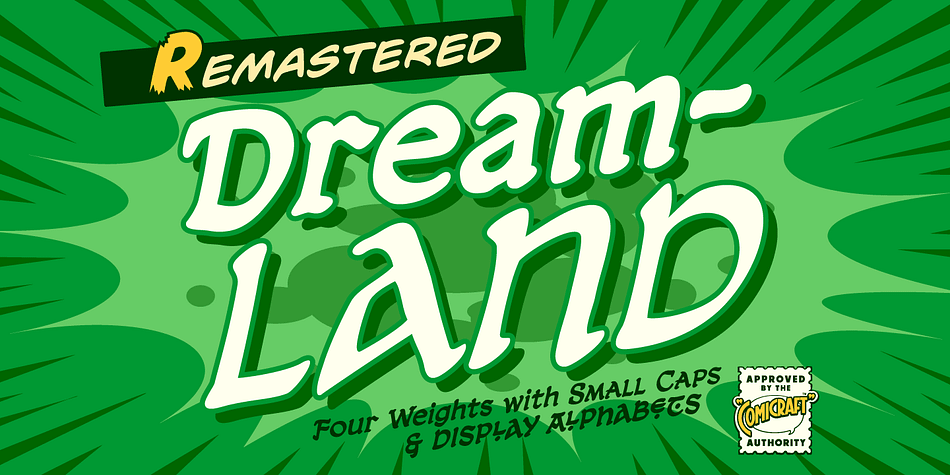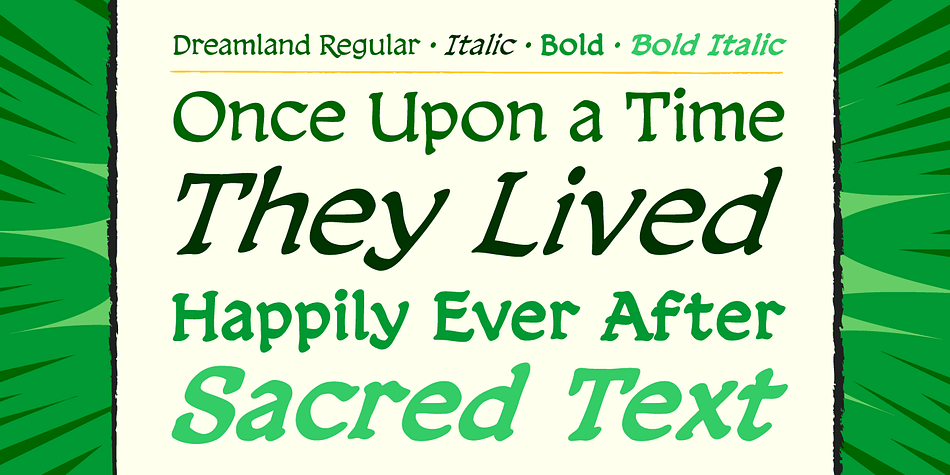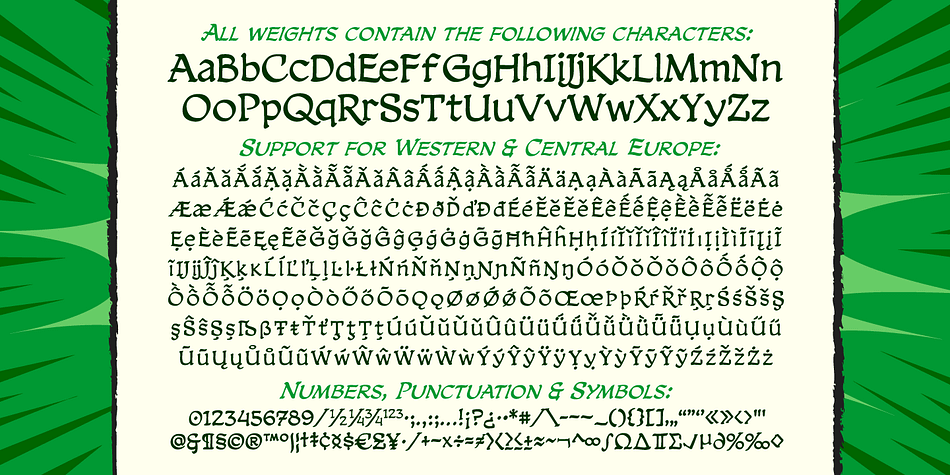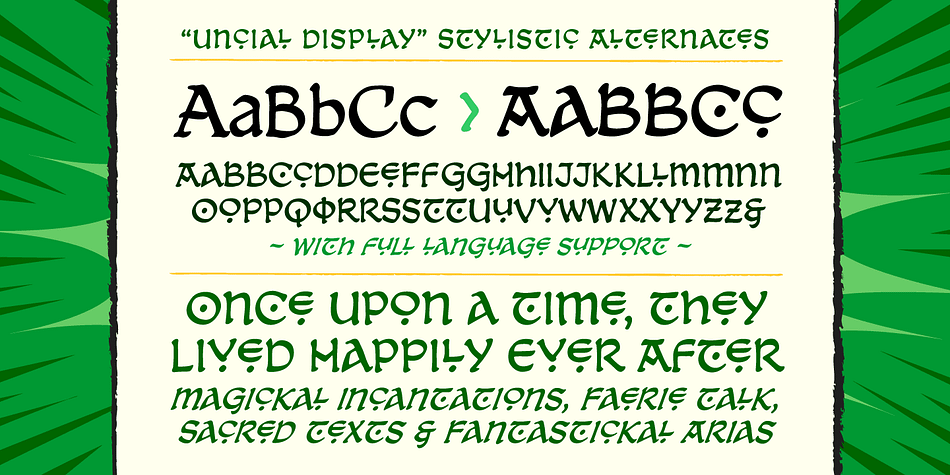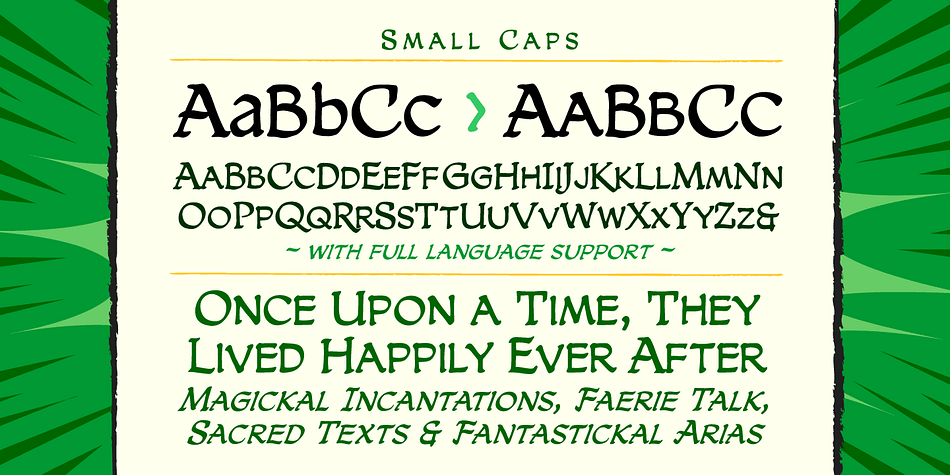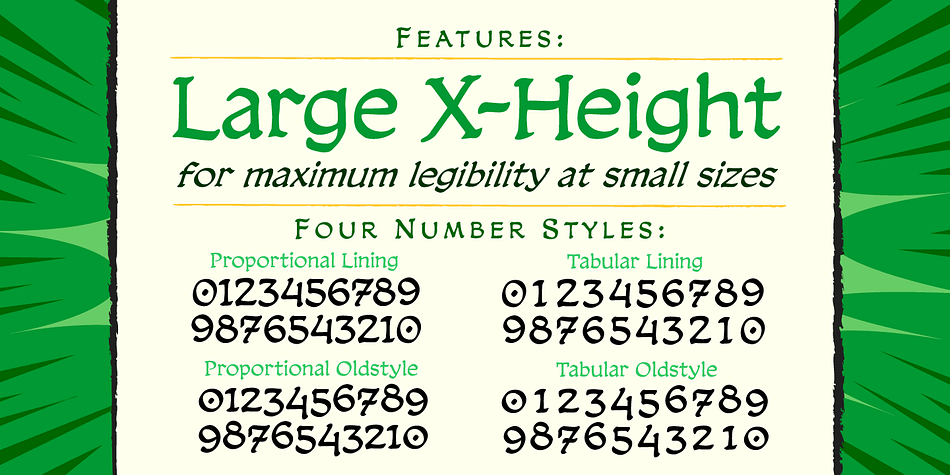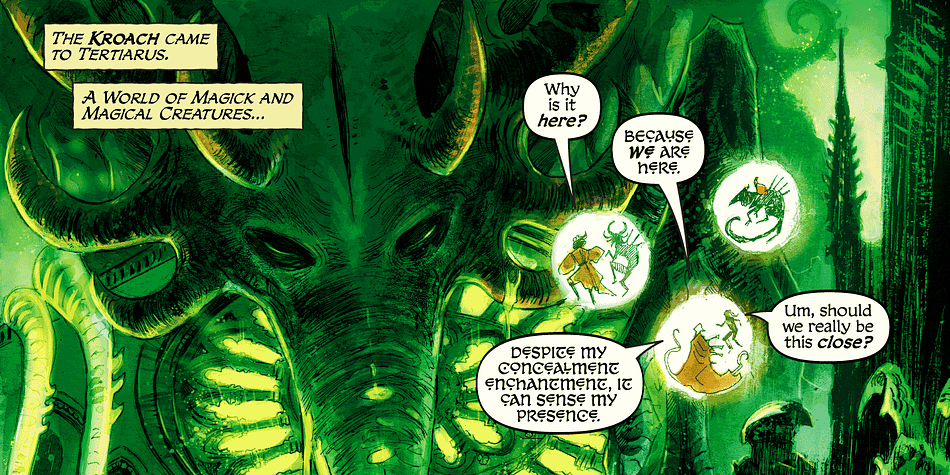
Designed by John Roshell, Dreamland is a hand display font family. This typeface has eight styles and was published by Comicraft.
Ring-bearers across Middle Earth will be kissing their Sorceror’s Stones, when they hear the news of the debut of this magickal collection of fonts, suitable for Incantations, Faerie talk, Books of Magic and fantastickal Arias. Coincidentally the official font of Scott Sava’s DREAMLAND CHRONICLES (how didja guess?), Dreamland is also suitable for any chronicles you may have of your own.
Seven fonts! Three weights (Regular, Italic & Bold Italic), in uppercase with alternate characters and upper/lowercase versions, plus uncial Display font